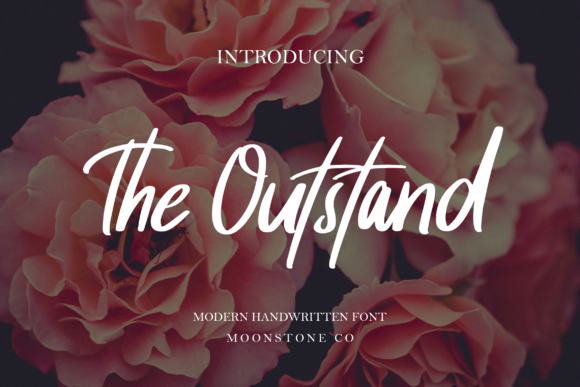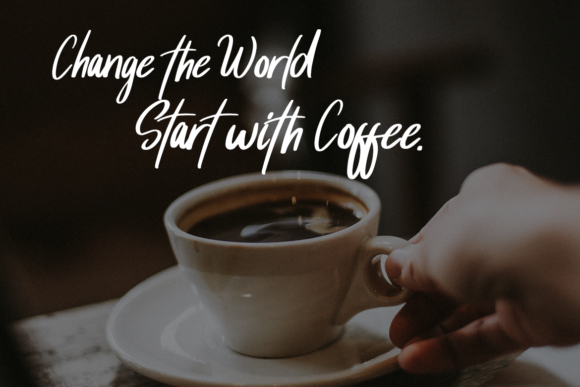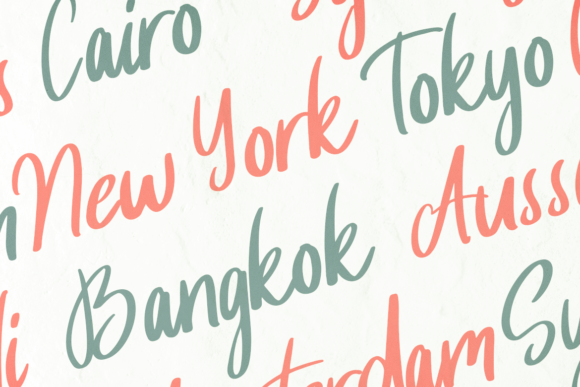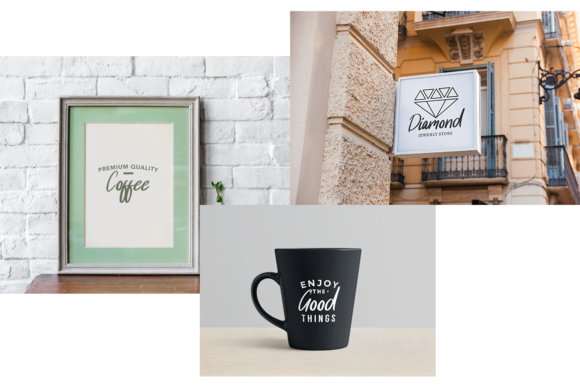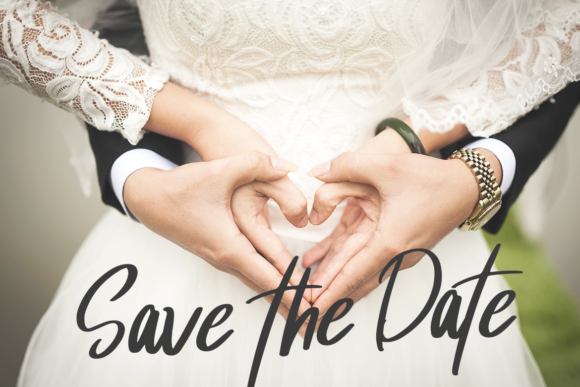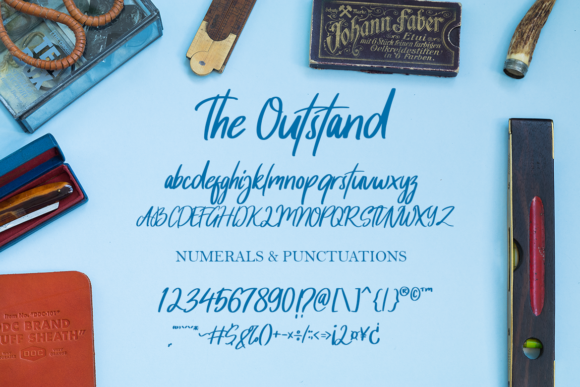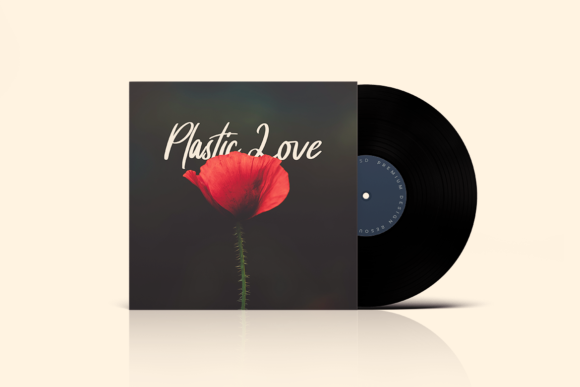
The Outstand Font
About The Outstand Font
The Outstand is an elegant and fun handwritten font with a bold feel. It will turn any design idea into a true standout!